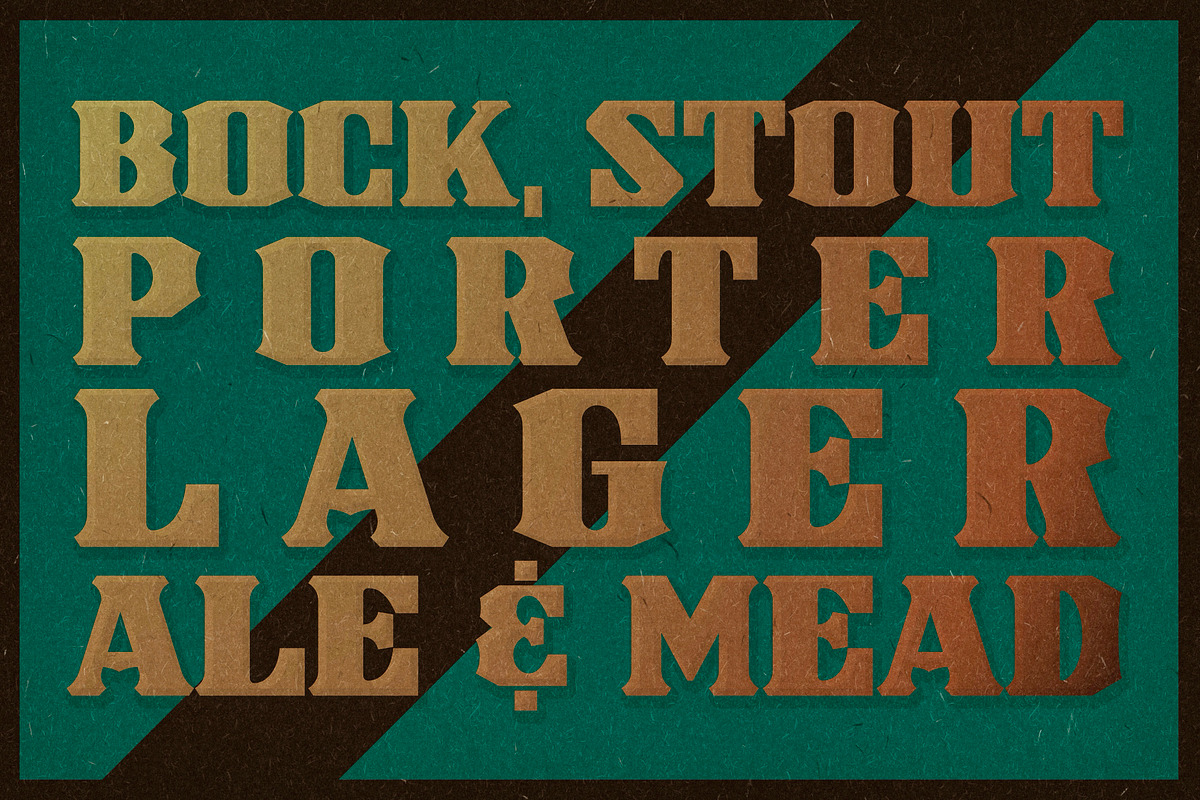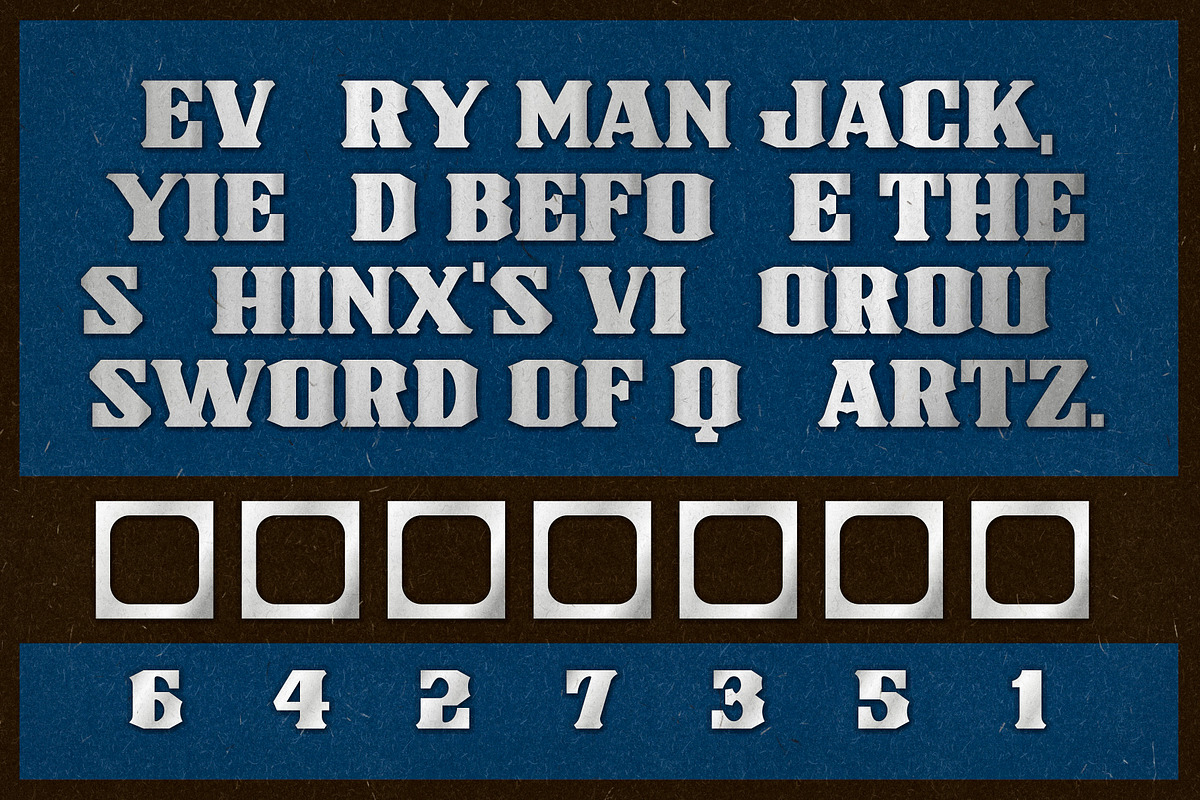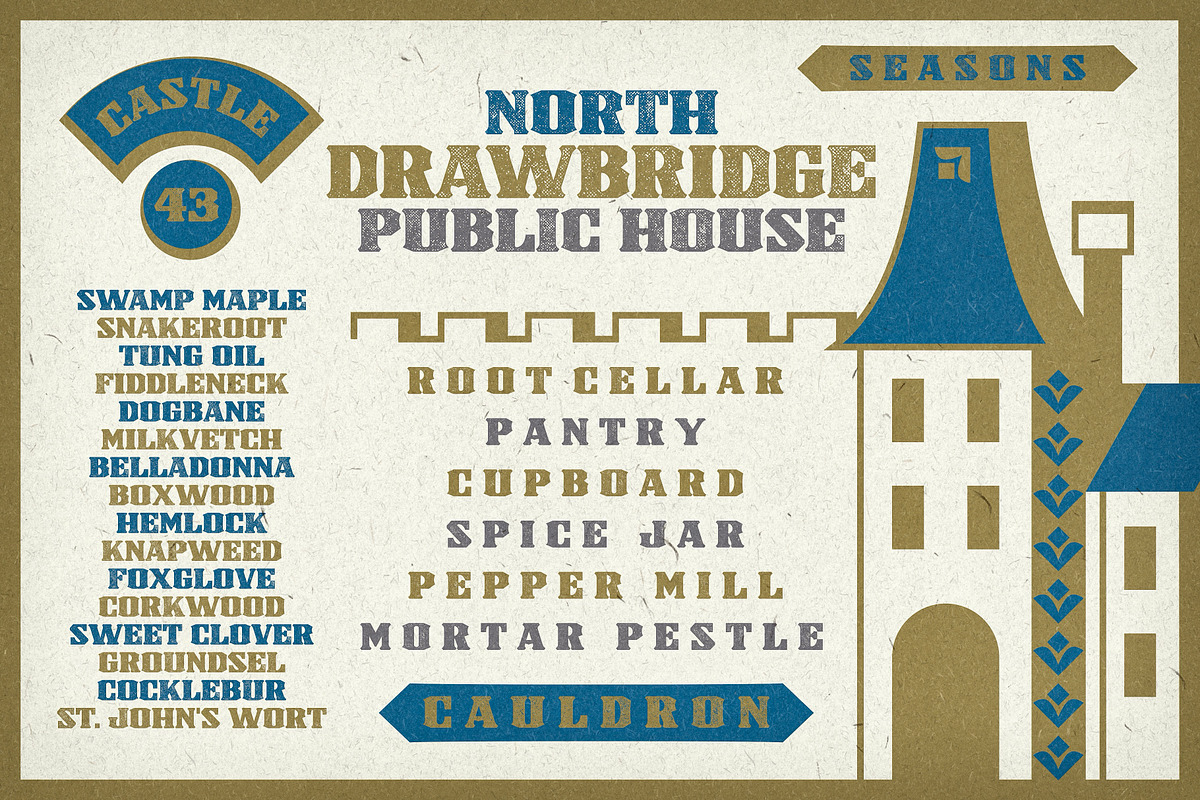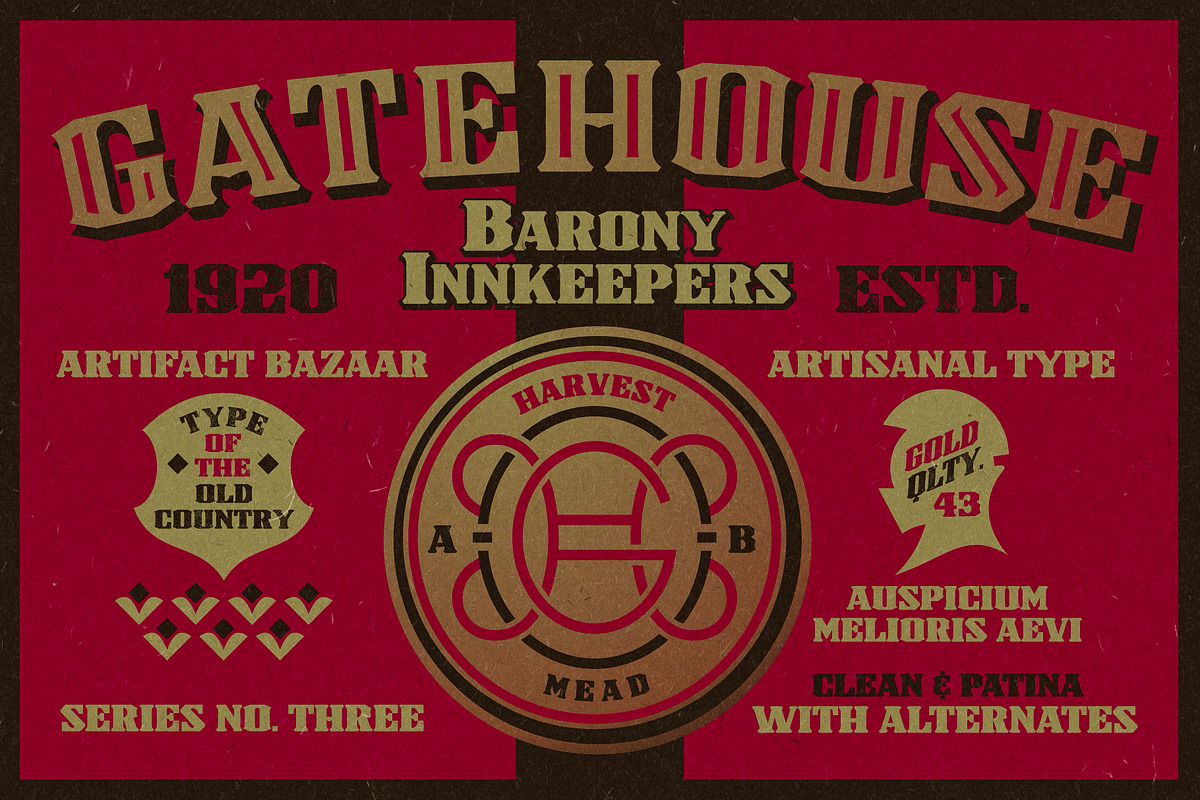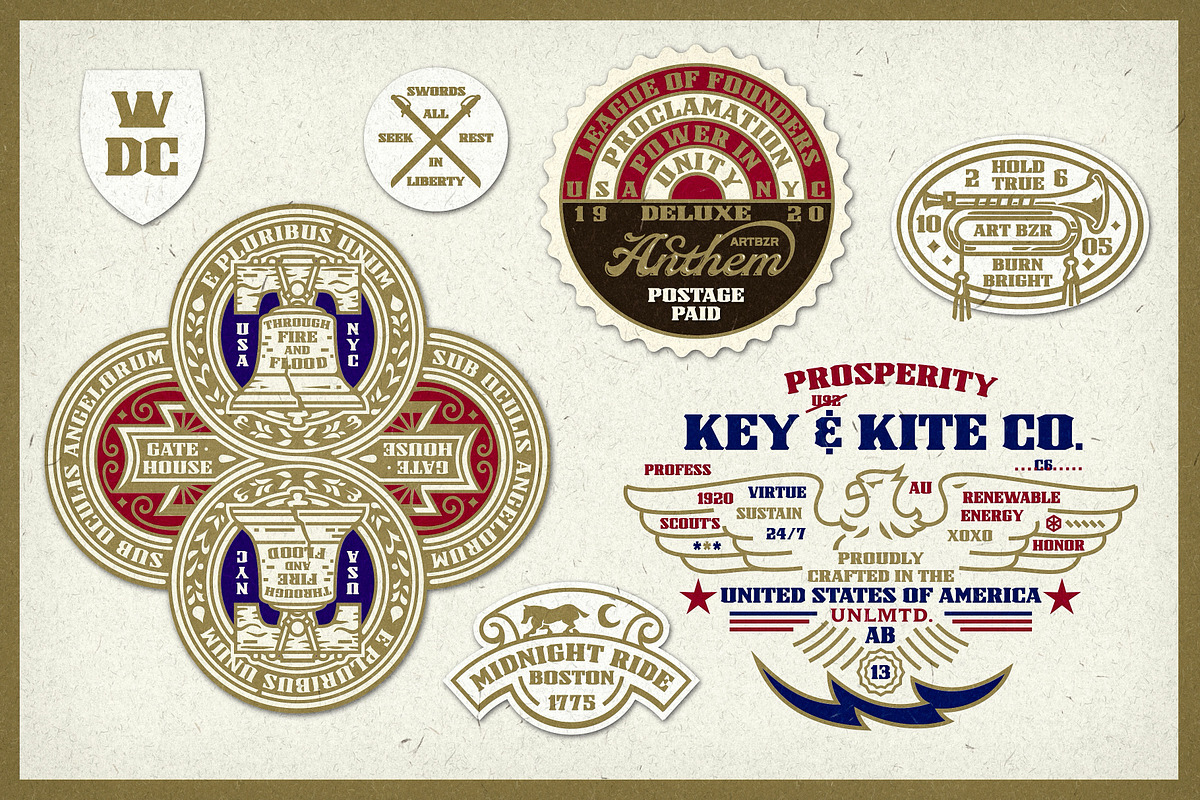
Gatehouse | Bold Bank Display Slab
"Bock, stout, porter, lager, ale, and mead" best describe the old-country, stonewall, fireside, brick oven, pub font "Gatehouse."
- 2 Styles: Regular and Patina
- Texture variations in CAPS